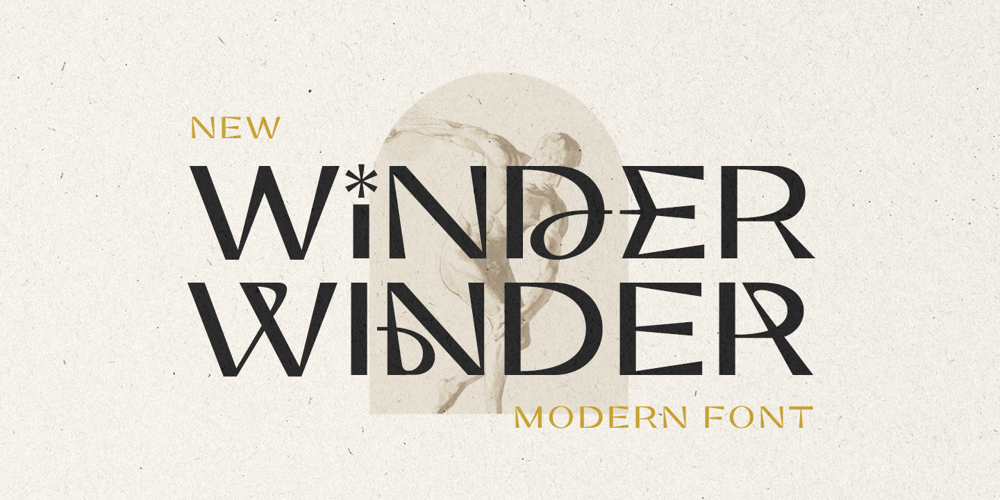
Winder
Winder font
Winder Font Family was designed by Sarid Ezra and published by Sarid Ezra. Winder contains 1 styles and family package options. Introducing, Winder, a modern fontWinder is a modern and stylish sans based font. You can find the uniques from the forms in lowercase. You can combine the lowercase and uppercase to get more stunning and approachable design. You can use this font for poster, logotype, branding and get stunning and unusual looks. This font also support multilingual!